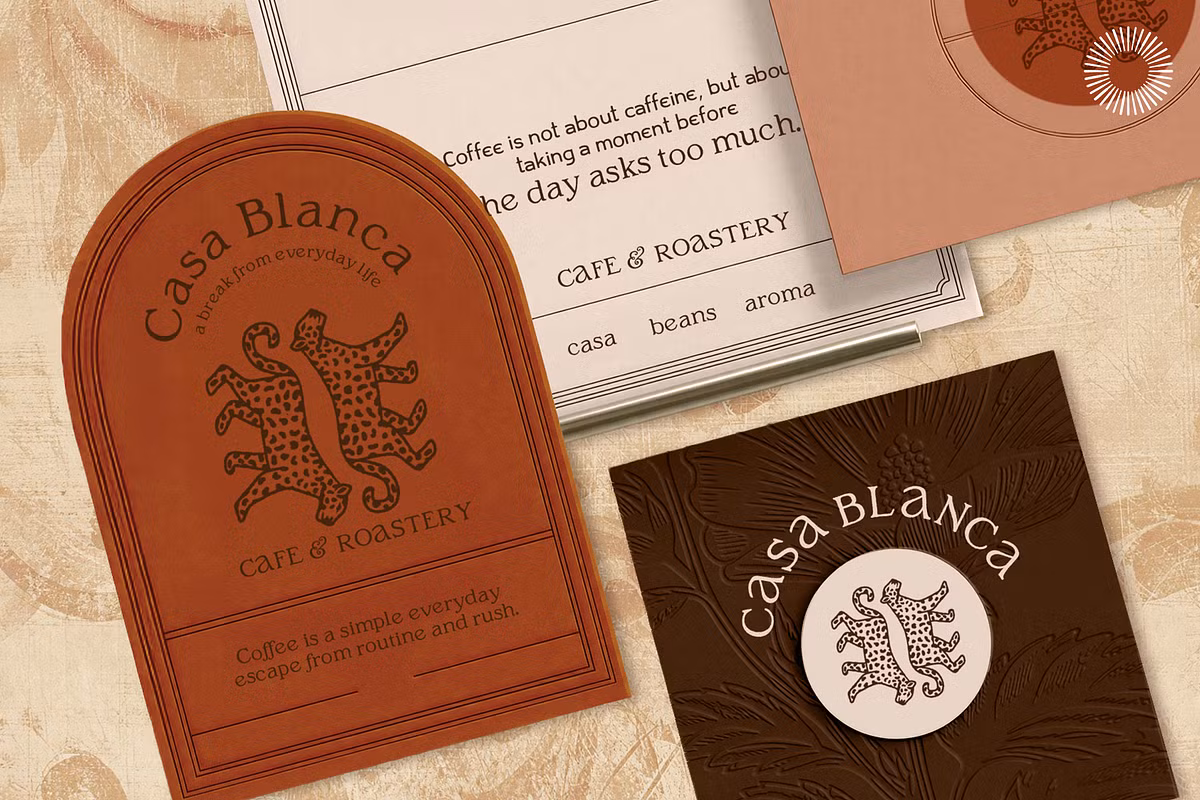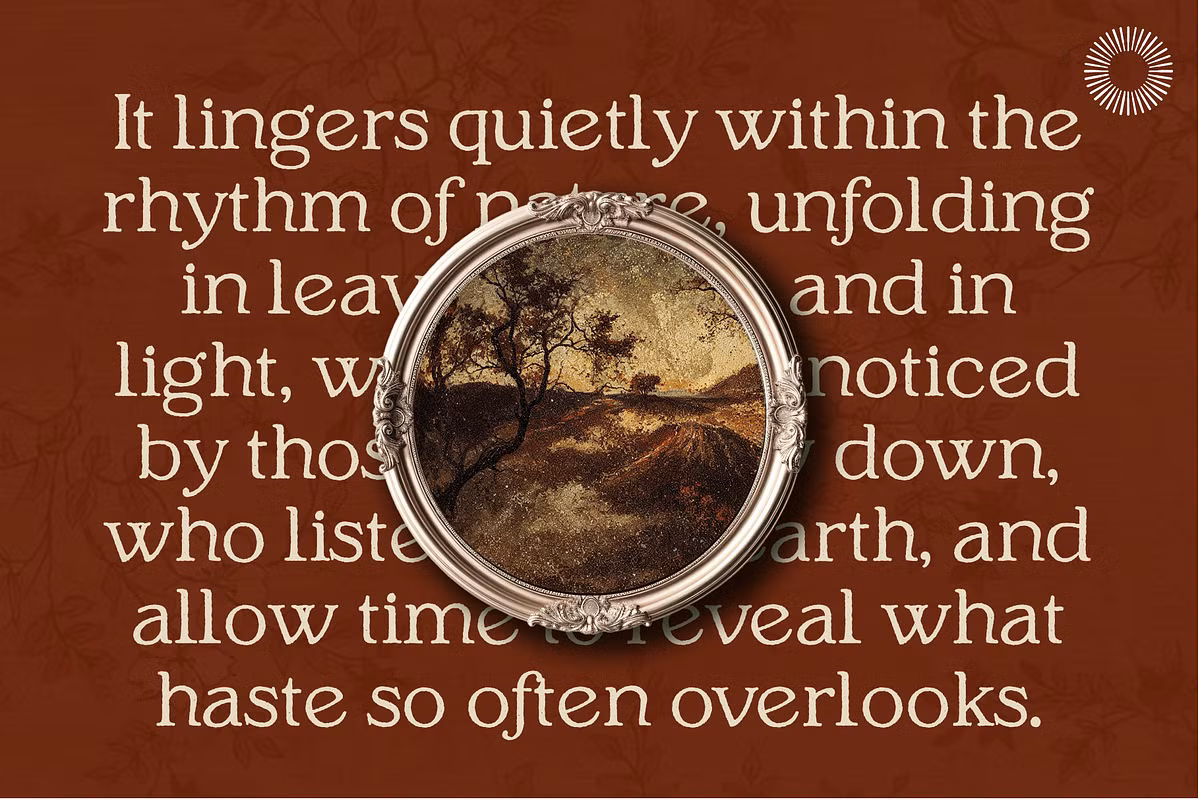
Northfield – Pressed Heritage: Vintage-Inspired Serif and Sans Font Duo
Northfield is a vintage-inspired serif and sans font duo designed for those who appreciate classic character combined with practical usability. This unique typographic duo draws inspiration from old press typography, traditional signage, and mid-century print design, infusing warmth, clarity, and a handcrafted feel into modern layouts. In this article, we will explore the design style, character sets, use cases, pairing suggestions, and licensing of Northfield, showcasing why it is an essential addition to any designer’s toolkit.
Design Style of Northfield
The design style of Northfield is deeply rooted in vintage aesthetics, making it a perfect choice for projects that require a nostalgic touch. The serif version features soft curves, rounded terminals, and sturdy proportions that echo the texture and rhythm of printed type. This design not only provides visual appeal but also creates a sense of friendliness and confidence, making it ideal for headlines and display use.
Meanwhile, the sans style of Northfield is characterized by its clean and balanced appearance. This design approach ensures that the sans font pairs naturally with the serif version, making it suitable for subheadings, captions, and body text. Together, these fonts create a harmonious typographic system that enhances readability while retaining a vintage charm.
Craftsmanship and Versatility
Northfield has a unique feel to it, like it’s been carefully printed and has a warm touch. You can use it in lots of different design projects, like posters, branding, and packaging, and it will always look great. The fonts are classic and simple, so they won’t go out of style anytime soon. They’re not too fancy, which makes them perfect for actual design work, rather than just trying out new ideas for the sake of it. This means you can rely on Northfield to get the job done, without worrying about it looking outdated or over-the-top.
Character Sets and Language Support
The Northfield font duo is a great resource for designers, including both Northfield Serif and Northfield Sans. It comes in TTF and OTF formats, so you can use it with most design software. What’s really useful is that it has a complete set of characters, including uppercase and lowercase letters, numbers, and punctuation marks. This means you can use it for a wide range of projects without worrying about missing characters. Plus, it supports multiple languages that use the Latin alphabet, making it a good choice for projects that need to reach people who speak different languages. Overall, the Northfield font duo is a versatile and practical option for designers who want a reliable font for their work.
Northfield offers more than just the usual set of characters – it also has alternative versions of some characters, which gives designers more freedom to get creative. This is really helpful for designers who want to make their typography match the overall look and feel of their projects. They can use these extra characters to add a personal touch and make their work stand out. By having these alternates, designers can experiment with different styles and find the one that works best for them. This feature is all about giving designers the flexibility to customize their typography and make it their own.
OpenType Features
Northfield has some really great features, especially when it comes to OpenType. This means designers can easily use different versions of letters and support multiple languages, all in one go. By using these features, you can make your designs stand out and give them a unique feel that sets them apart from others. What’s more, the OpenType features in Northfield make it more than just a pair of fonts – it’s a whole system for working with type that can be tailored to your specific needs. This makes it really versatile and able to adapt to whatever design project you’re working on. Whether you’re looking to add some extra flair to your work or just want a reliable font that can handle anything you throw at it, Northfield is definitely worth considering. With its advanced typographic features and seamless multilingual support, it’s a great choice for designers who want to take their work to the next level.
Use Cases for Northfield
Northfield is really flexible and can be used in lots of different design projects. Here are some of the main ways it can be used, and it’s really good at them:
- Vintage and Retro Posters: The classic character of Northfield makes it a perfect choice for posters that seek to evoke nostalgia.
- Branding and Logo Design: Its warm and grounded feel can help create memorable branding that resonates with audiences.
- Packaging and Labels: Northfield’s clarity ensures that product information is easy to read while maintaining a stylish appearance.
- Editorial and Print Layouts: The combination of serif and sans styles enhances readability, making it suitable for magazines and books.
- Signage and Display Typography: Northfield works wonderfully in signage, where clarity and visibility are paramount.
Design Applications
When you’re working with Northfield, think about where your typography is going to be used. Like, if you want to make a big impact, use the serif version for headings that really grab people’s attention. On the other hand, if you need to make sure your body text is easy to read, go with the sans version. By mixing and matching these two, you’ll create a clear visual flow in your design and make it look super cohesive. This way, your project will have a nice balance and be easy on the eyes. Plus, using the right typography in the right context can really make your design stand out and communicate your message more effectively.
Choosing the right fonts to go together can be tough, but Northfield makes it easier with its matching serif and sans serif styles. To really make your text stand out, here are some great ideas for pairing fonts:
Northfield is a beautifully crafted font that combines the classic look of vintage designs with the usability of modern fonts. It’s a duo of serif and sans fonts that work perfectly together, making it a great choice for a wide range of design projects, like branding and editorial layouts. The fonts have a rich, classic style and include a lot of characters, as well as some really useful OpenType features. This makes Northfield a really versatile font that designers will love. Whether you’re working on a big project or just want to add some classic style to your design, Northfield is a great choice. It’s warm, timeless, and will take your typography to the next level. With its thoughtful design and practical features, Northfield is a must-have for any designer looking to create something special.